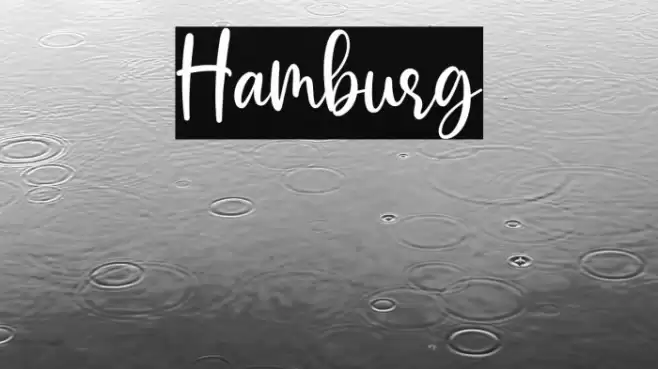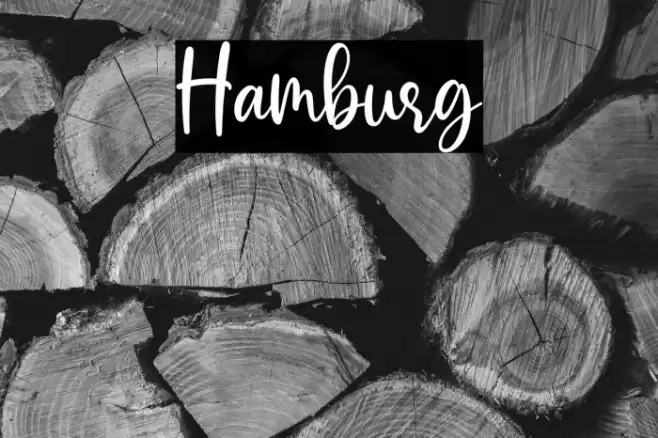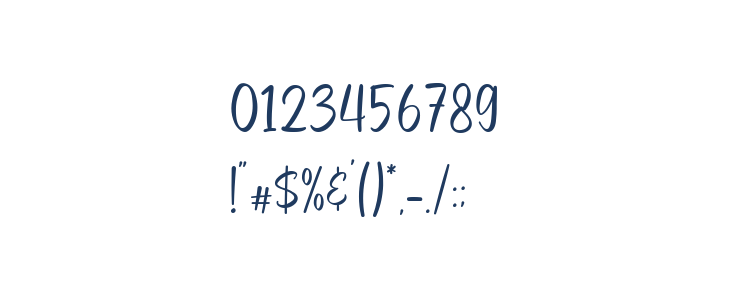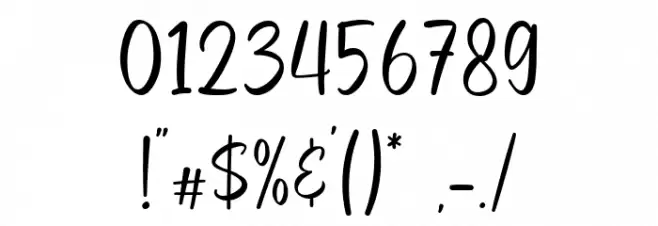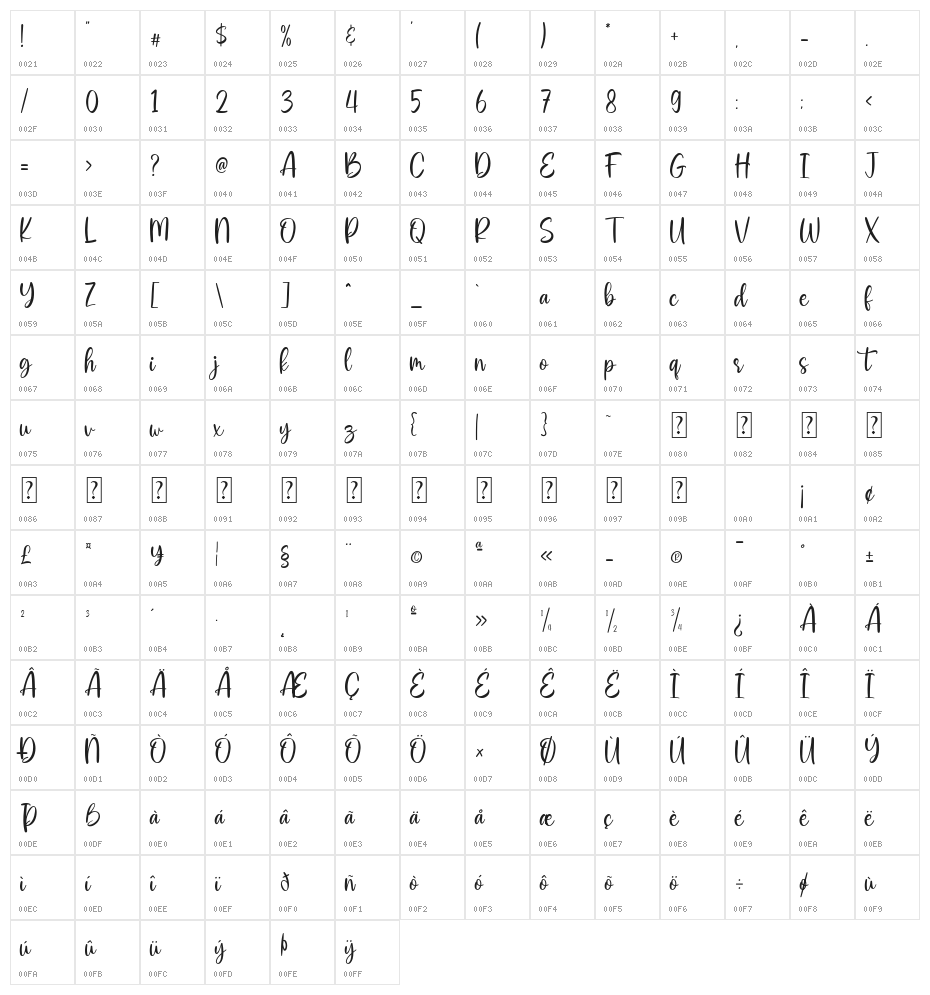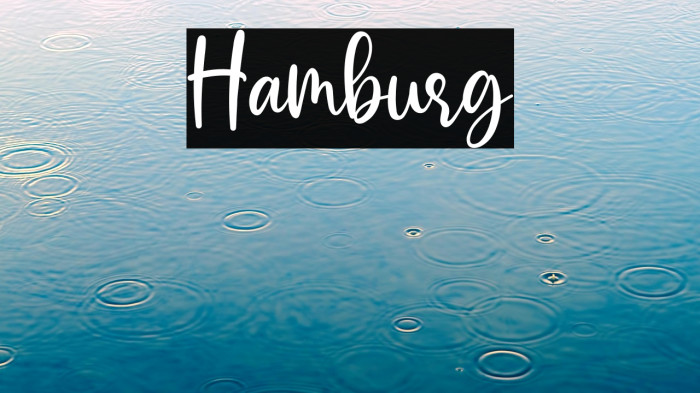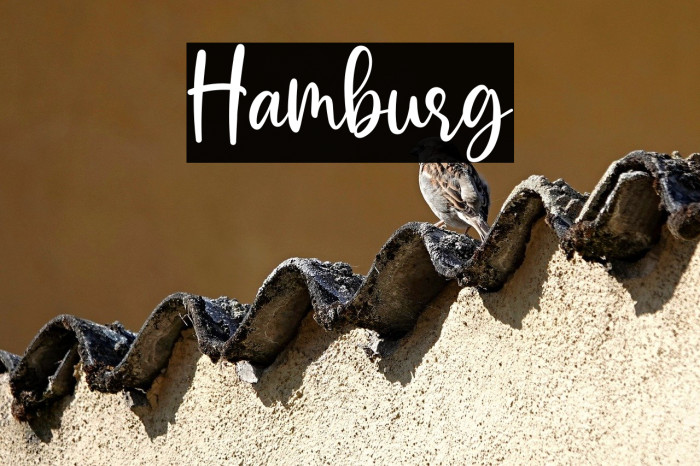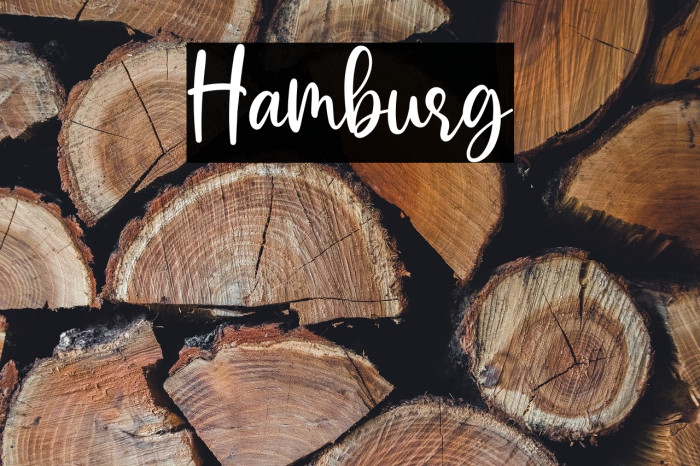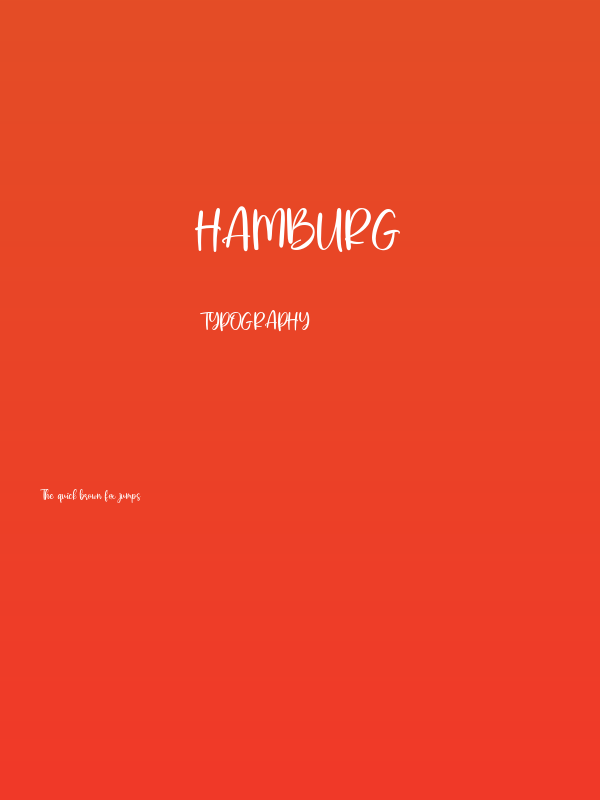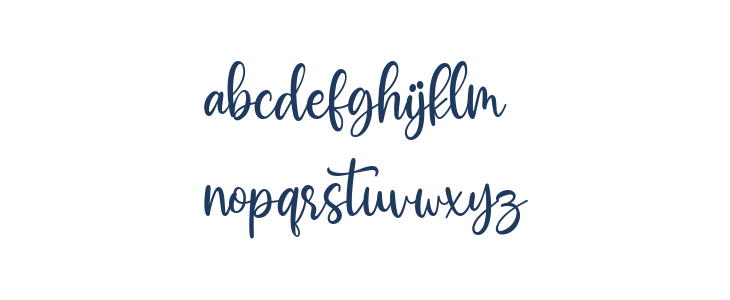
Hamburg Font
Hamburg Description
This font features a playful and energetic script style, characterized by its flowing, cursive letterforms. The uppercase letters are bold and dynamic, with a slight slant that adds a sense of movement. The lowercase letters maintain a consistent flow, with smooth connections between each character. The numbers are clear and legible, maintaining the same lively style as the letters. Special characters are designed to complement the overall aesthetic, making them suitable for a variety of creative applications. The font's design is both modern and approachable, making it ideal for projects that require a personal touch.
A playful and energetic script font with flowing, cursive letterforms from Regular fonts.
- Proposed Projects: Ideal for greeting cards, invitations, branding, and social media graphics.
- Use Case: Logos, Headlines, Invitations